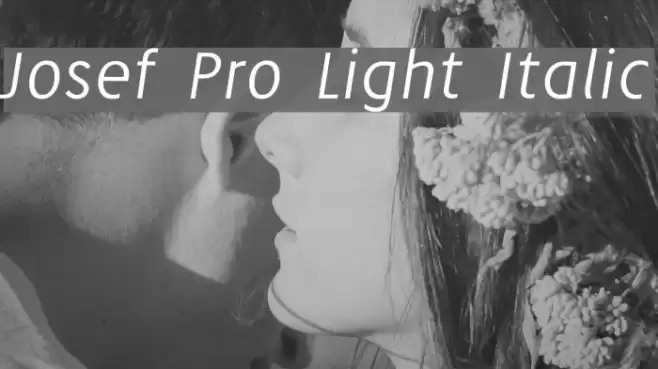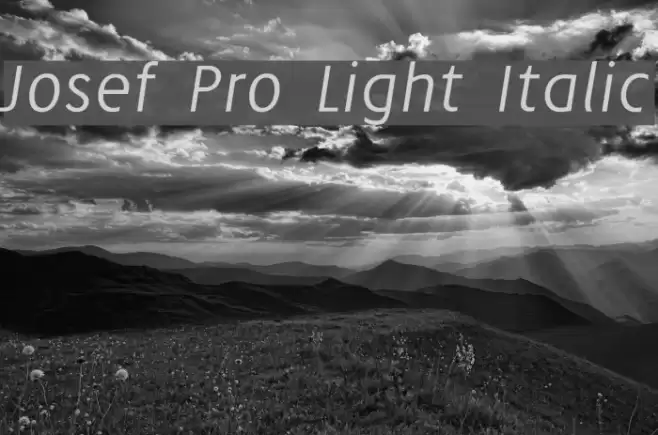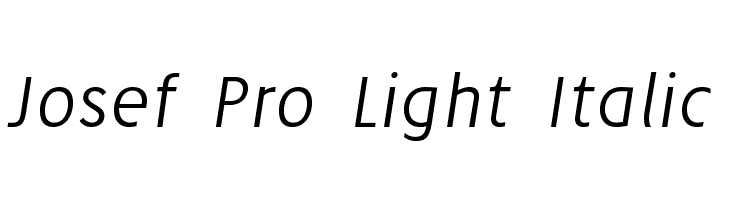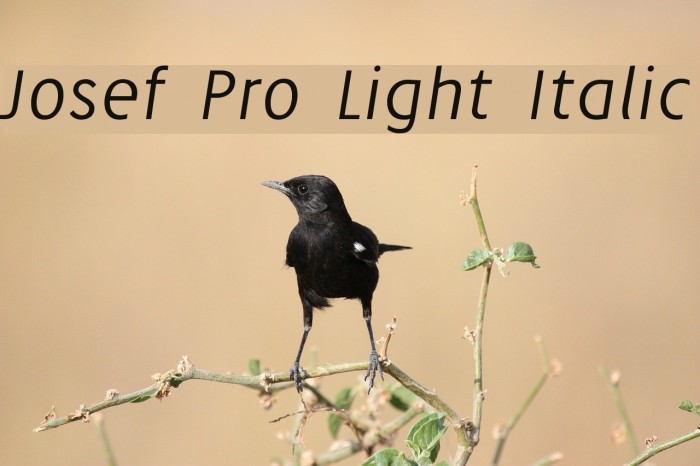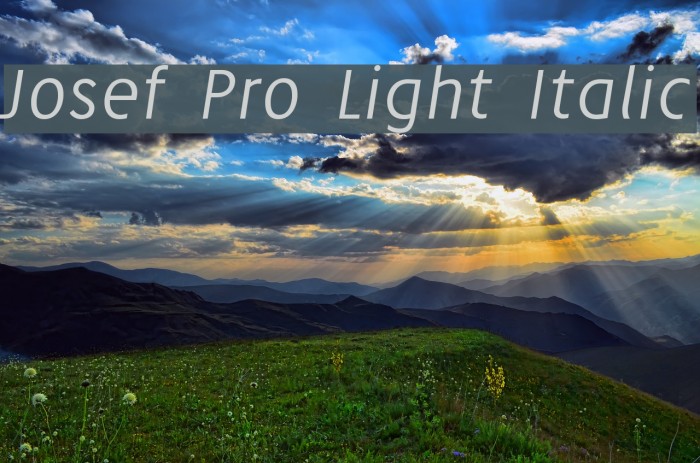
Josef Pro Light Italic Font
Josef Pro Light Italic Description
This font exhibits a sleek and modern aesthetic with its light and italicized form. The characters are elegantly slanted, providing a sense of motion and dynamism. The strokes are thin, contributing to a refined and sophisticated appearance. The font maintains a clean and minimalist design, making it versatile for various applications. Its sans-serif nature ensures readability, while the italic style adds a touch of elegance. The spacing between characters is balanced, allowing for clarity and legibility even in smaller sizes. This font is ideal for projects that require a contemporary and stylish look.
A sleek, modern, and italicized sans-serif font with a refined appearance from Sans Serif fonts.